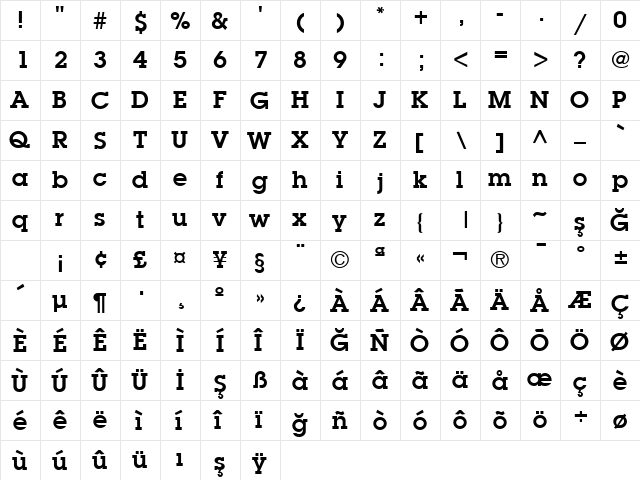
McLean Bold
Design Context for McLean Typeface
McLean takes a measured approach to typography — its balanced proportions and neutral character make it a reliable workhorse for both digital and print work. The heavy weight commands attention and anchors typographic hierarchies.